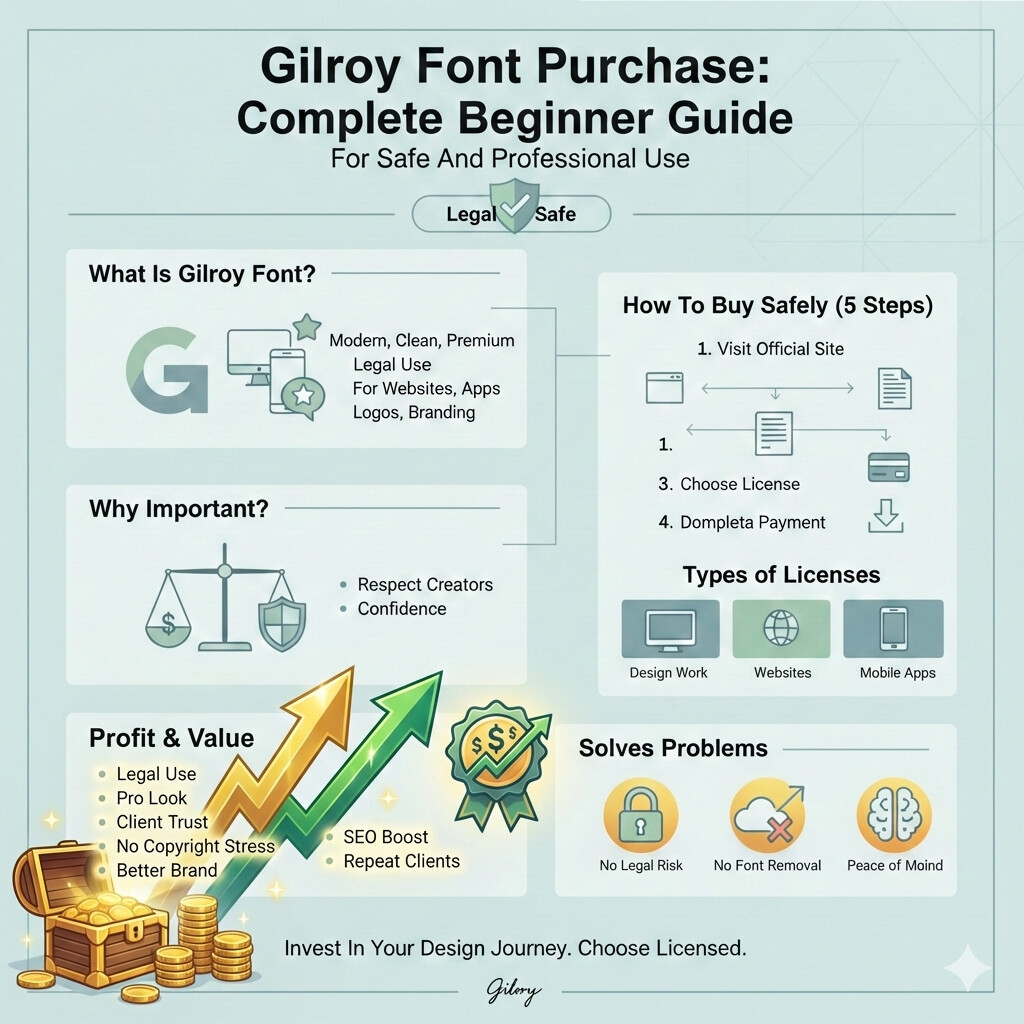
What Is Gilroy Font
Gilroy is a modern, clean and professional font. It is mostly used for websites, apps, logos posters and brand designs. I like this font because it looks simple but very premium.
We see gilroy font on many modern websites. It gives text a smooth and readable look. That is why designers trust it for professional projects.
If we are making a website we should use a licensed font. Gilroy font works very well on websites. It is clean and looks modern.
Gilroy Font Purchase For Designers
Designers should always use licensed fonts. Clients expect clean and legal work. Gilroy font purchase helps designers build trust with clients.
If we want repeat clients we should follow correct font usage rules.
How Gilroy Font Purchase Solves Problems
Gilroy font purchase solves many problems
No legal risk No font removal issues Peace of mind Professional confidence
That is why I always recommend buying the font if you can.
SEO Benefits Of Using Licensed Fonts
I think licensed fonts help indirectly with SEO. Clean typography improves readability. When users stay longer on a site Google trusts it more.
We should focus on user experience and fonts play a big role in that.
Is Gilroy Font Purchase Worth It
Yes it is worth it if we are serious about our work. The cost is small compared to the value it gives. We should see it as a long term investment.
FAQ
Is gilroy font purchase necessary for beginners?
Yes, if beginners want to work professionally they should buy it.
Can we use gilroy font without buying?
Only for limited personal use. For business use we should buy it.
Is gilroy font safe for websites?
Yes, if we use the licensed version it is safe.
Does gilroy font purchase include updates?
Most official sellers provide updates and support.
Should we buy a gilroy font for client work?
Yes we should always use licensed fonts for clients.
Conclusion
i think gilroy font purchase is an important step for anyone who wants clean professional and safe design work. When we buy the font we remove fear and confusion from our work. We gain confidence and trust from users and clients.
If you are serious about websites or design you should choose the right license and use gilroy font legally. This guide is written to solve your confusion and help you make the right decision.